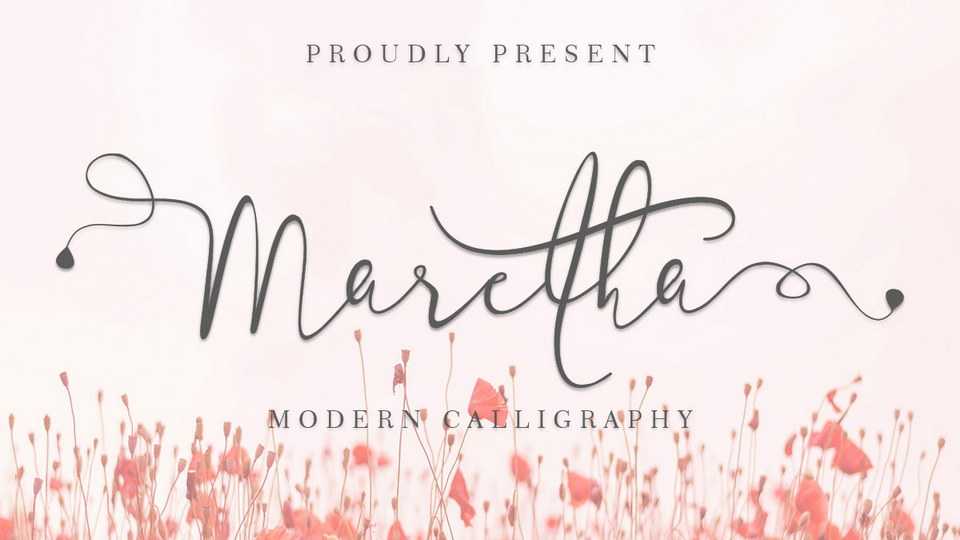
Download Maretha font, a very beautiful and elegant modern calligraphy typeface that is perfect for beautifying your work. Maretha is special for weddings, wedding photography, wedding invitations, branding, beautiful logos.